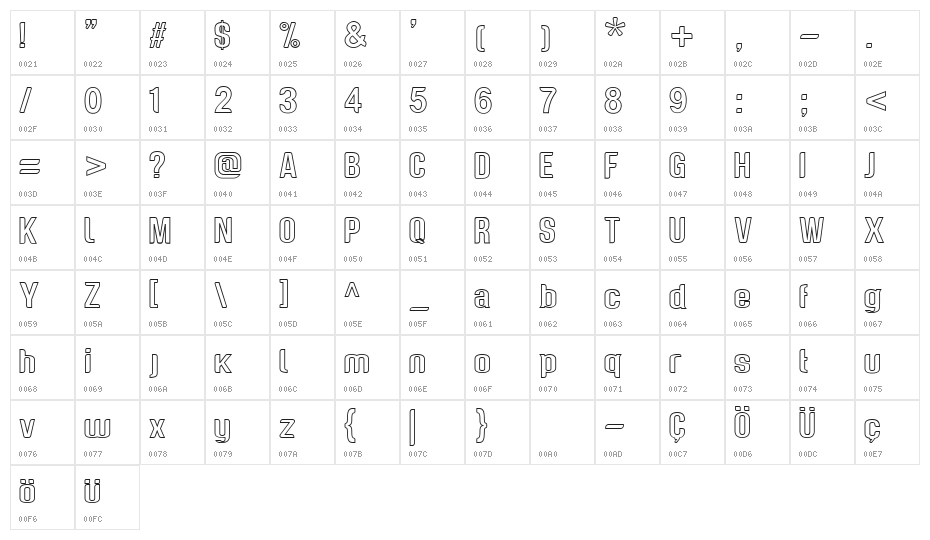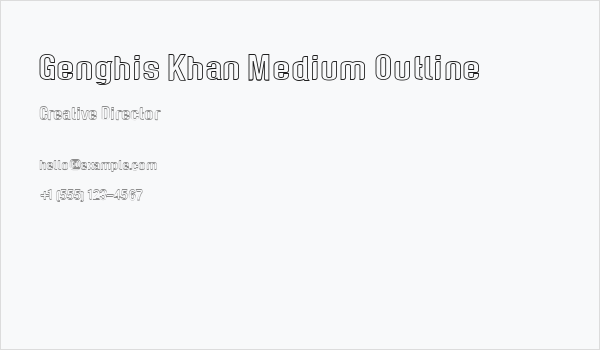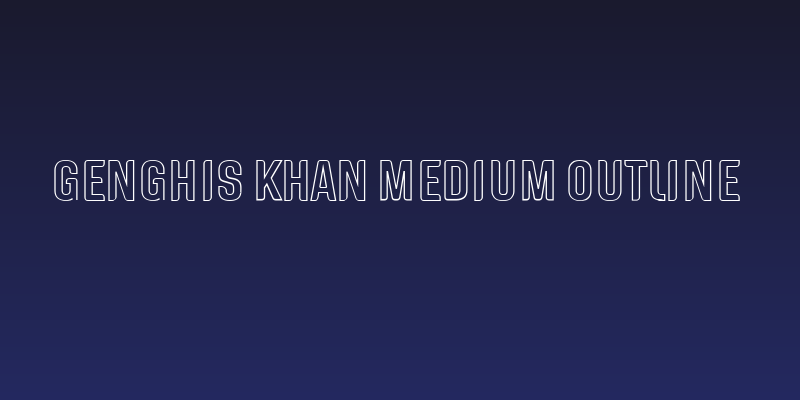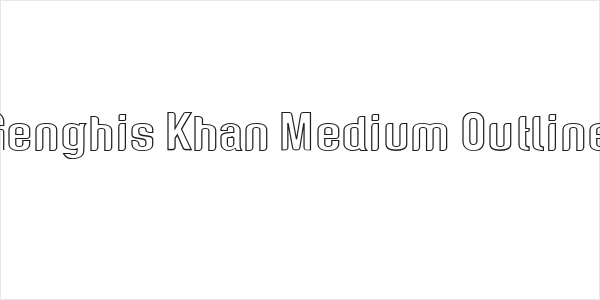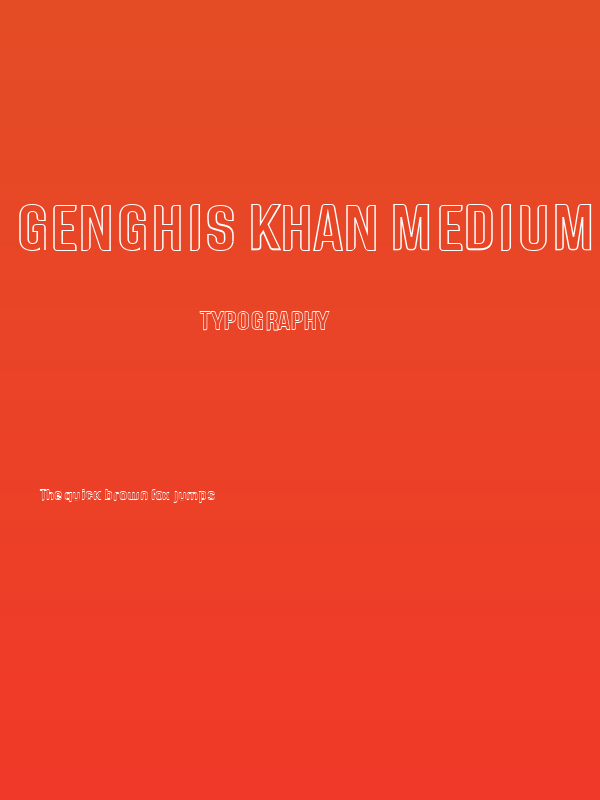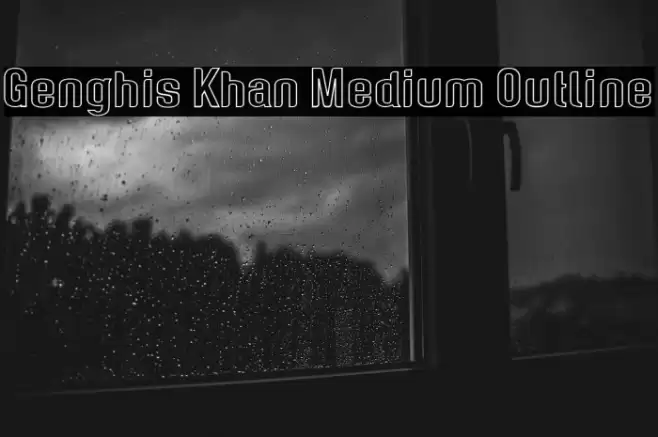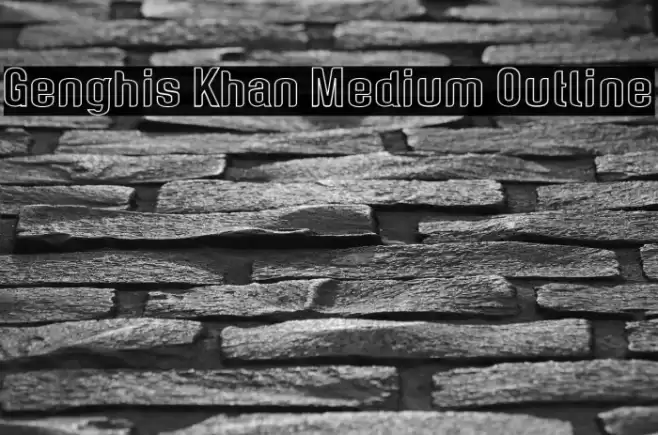
Genghis Khan Medium Outline Font
Genghis Khan Medium Outline Description
This font features a bold, outlined style with a modern and clean appearance. The uppercase and lowercase letters are well-proportioned, maintaining a consistent outline thickness that gives it a structured and geometric look. The numerals and special characters follow the same design principles, ensuring uniformity across all glyphs. The font's outline nature makes it ideal for creating standout text that needs to capture attention without overwhelming the viewer. Its clarity and simplicity make it versatile for various design applications.
| Proposed Projects | Ideal for posters, headlines, logos, and branding materials where a bold statement is needed. |